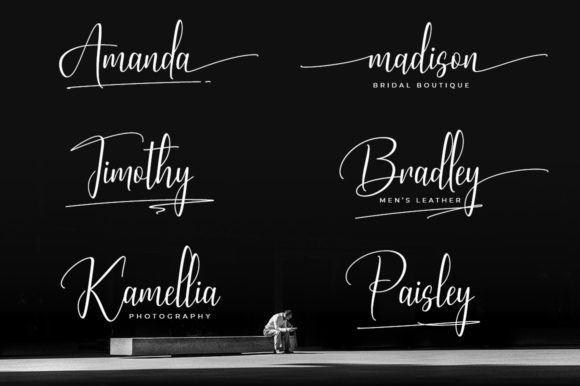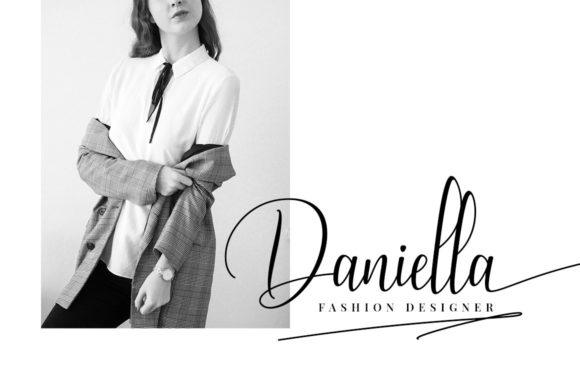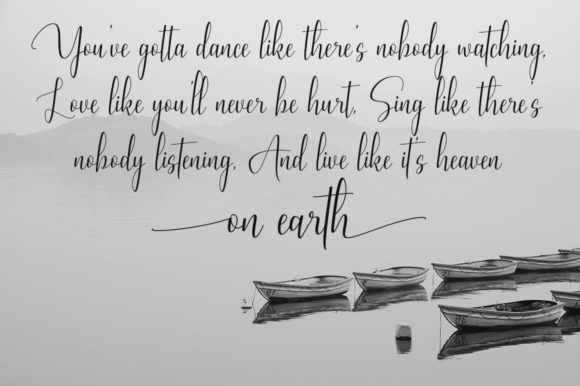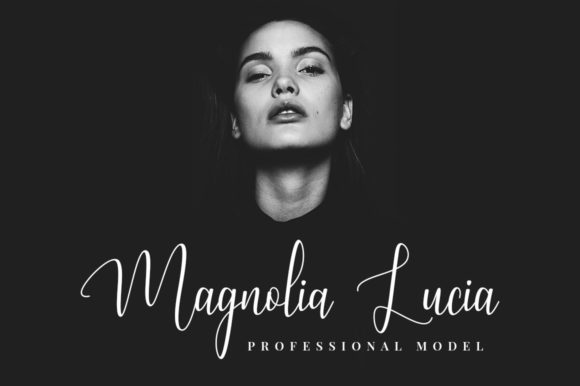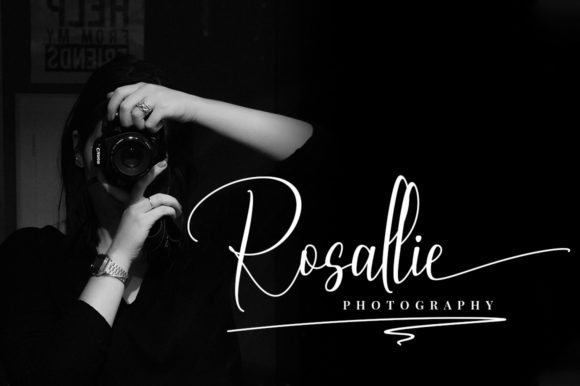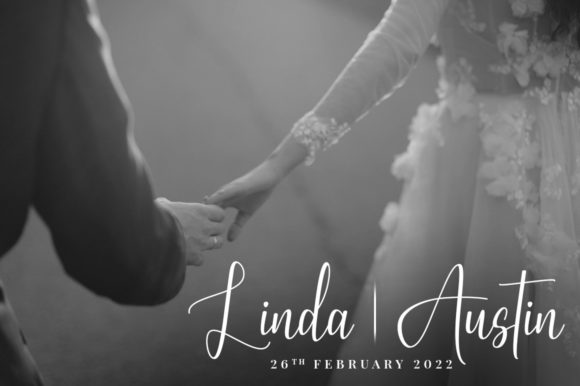
Introduction to Rosallyn Signature Font
Rosallyn Signature is a smooth and free-flowing handwritten font perfect for logos, wedding stationery, cards, gift designs, photography, watermarks, product packaging, and quotes.
Use it with confidence on your creative projects, and they will capture everyoneโs attention This font is PUA encoded, which means you can access all of the glyphs and swashes with ease.
Key Features of Rosallyn Signature Font